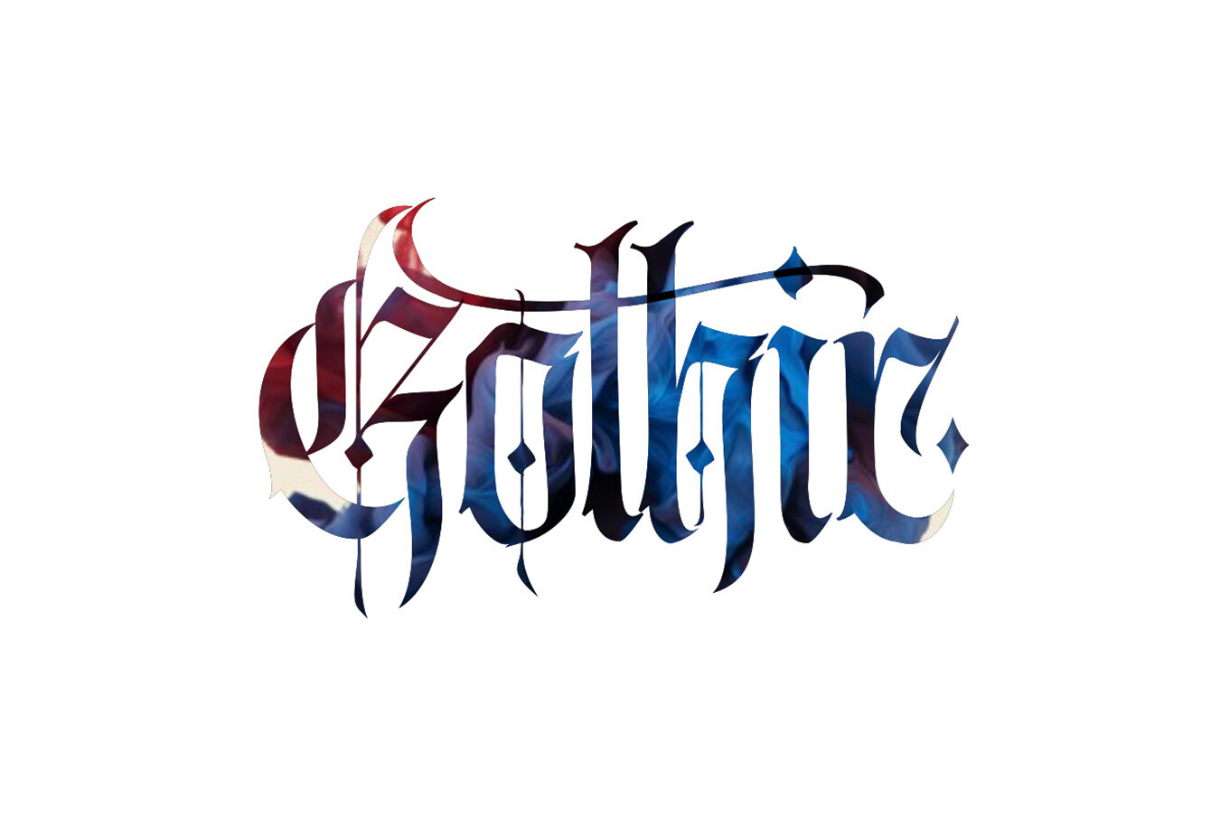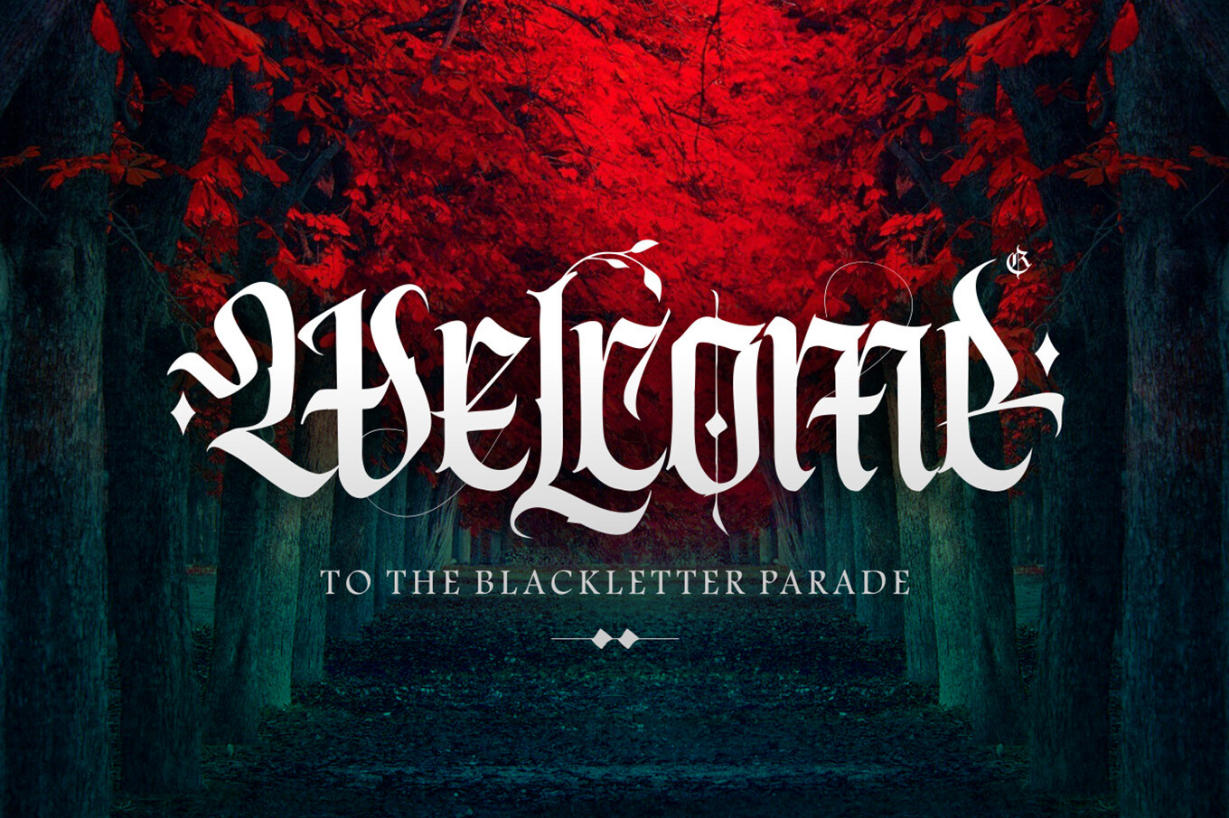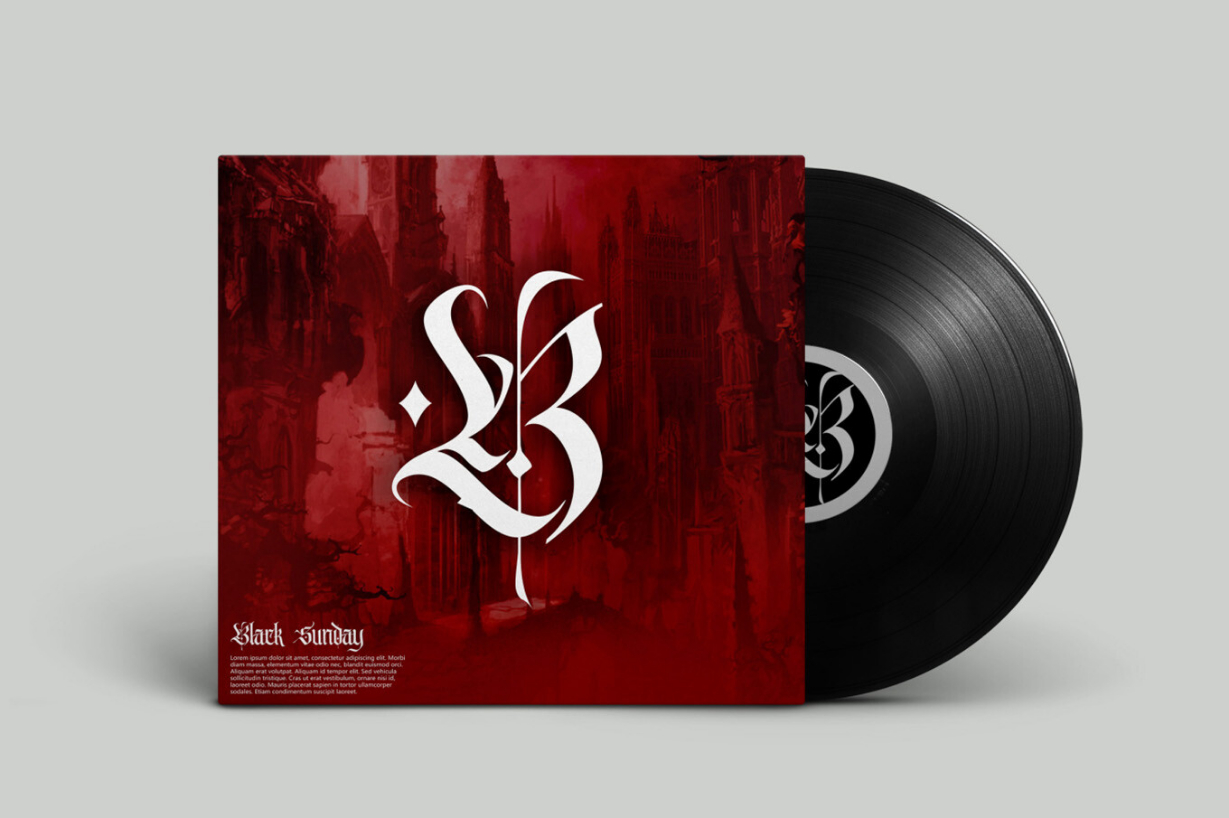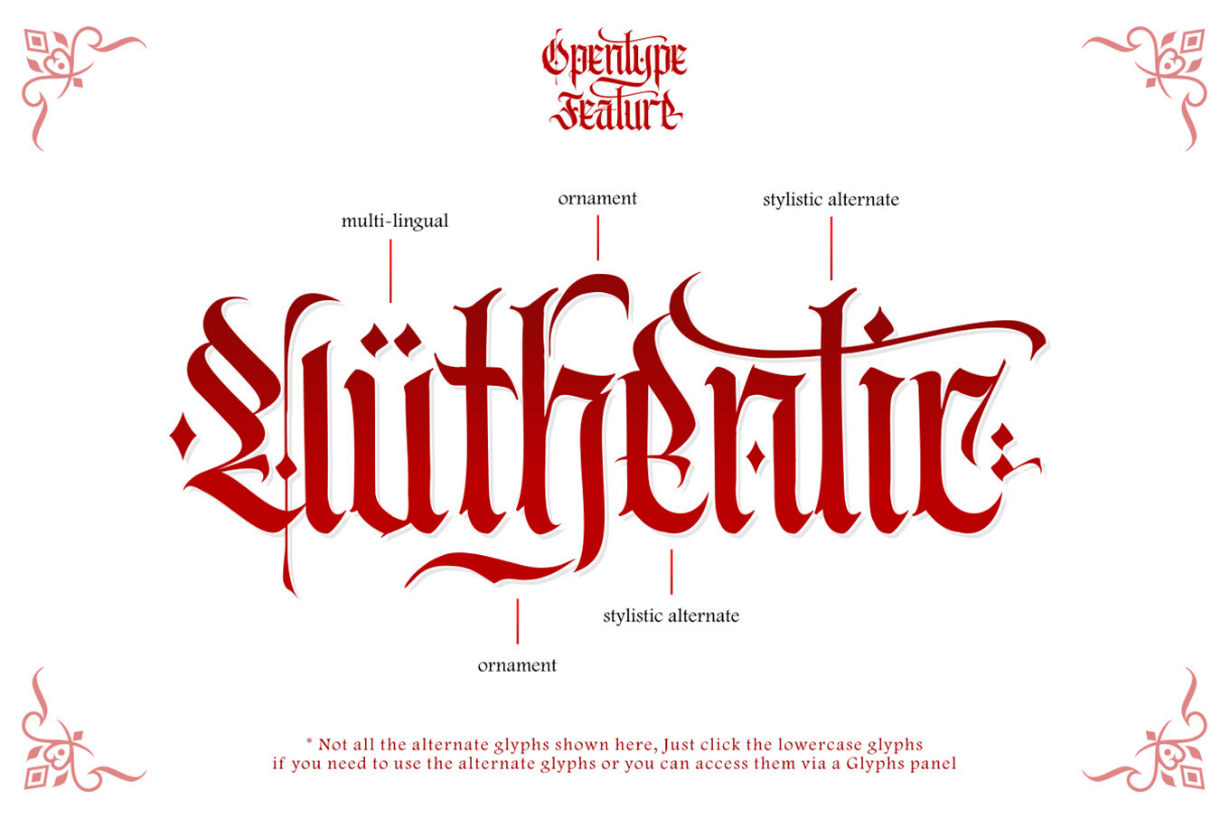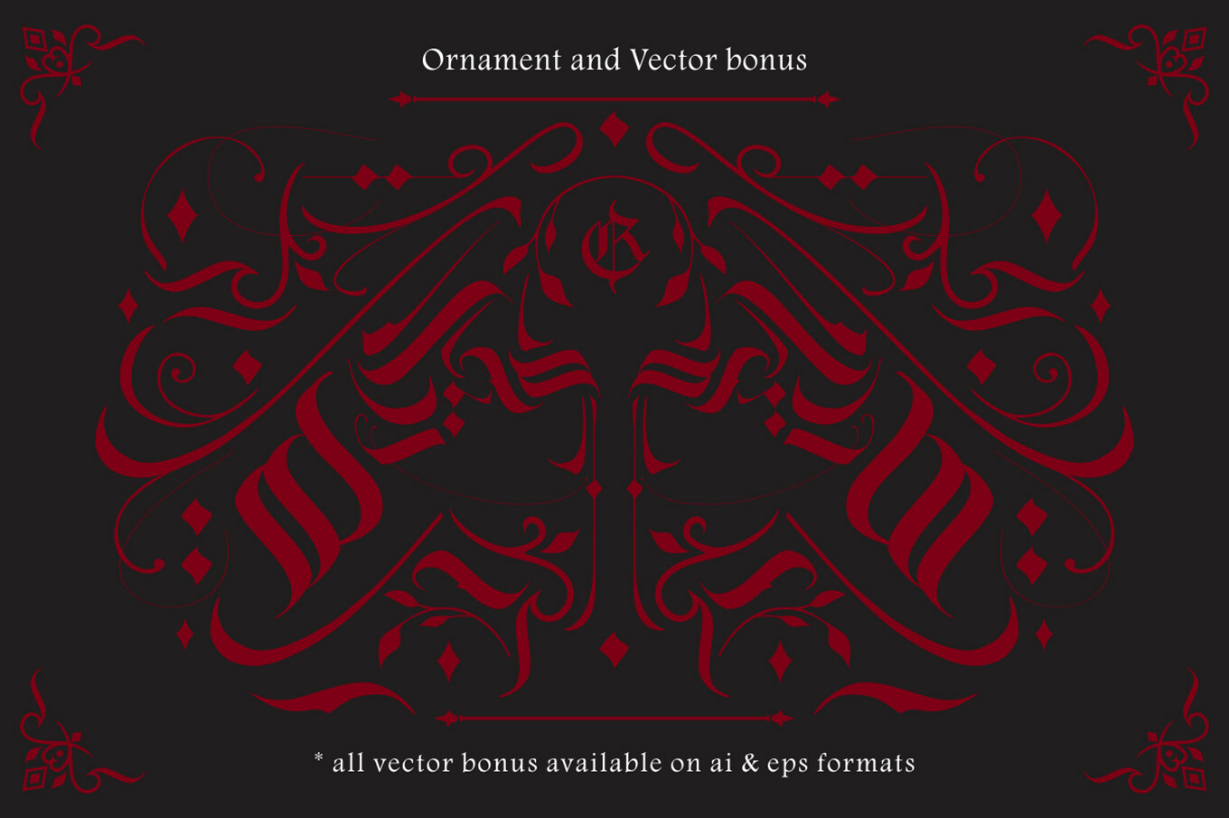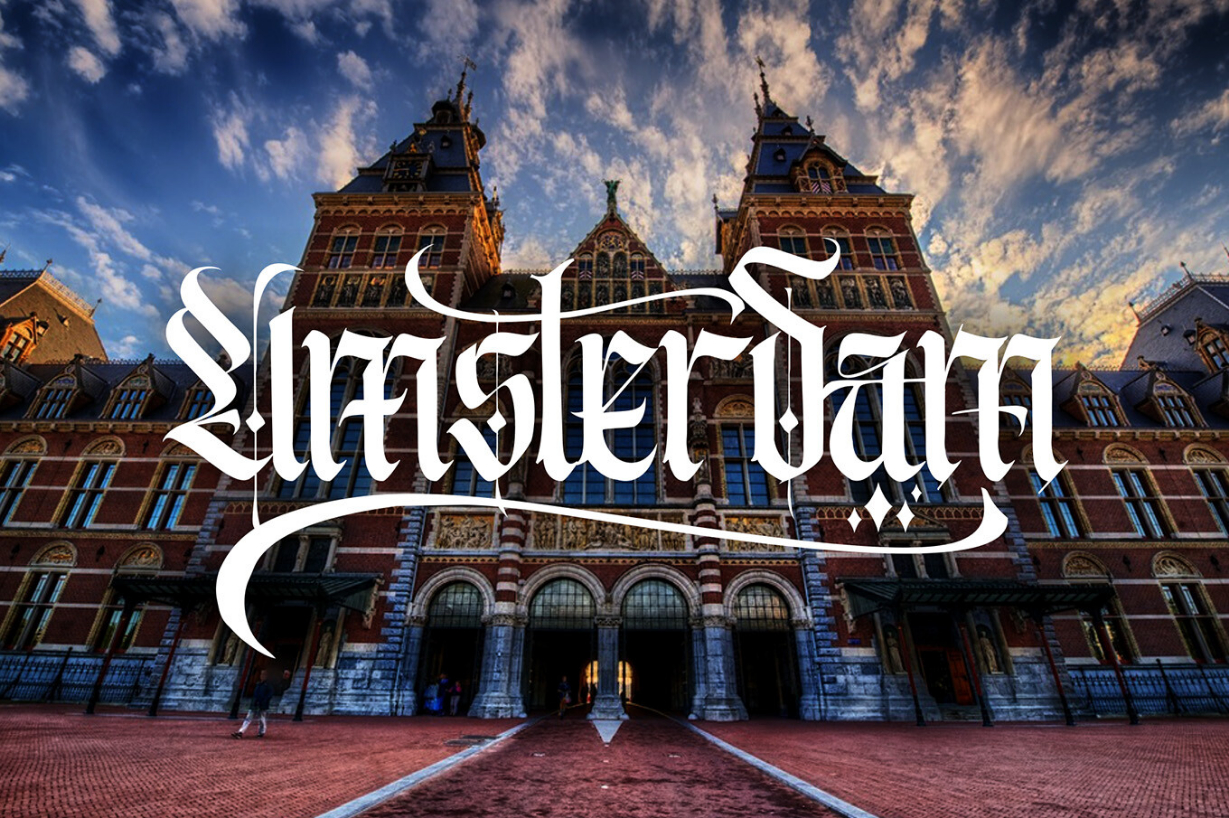
Wednesday Font
About Wednesday Font
The Wednesday is a typeface with classy, elegant and vintage feel character set. To create the beautiful combination, just mix the uppercase and lowercase then mix with the alternative glyphs. The Wednesday typeface includes a full set of capital and lowercase letters, as well as multi-lingual support, currency figures, numerals, punctuation & some extra glyphs. Bundling with vector bonus.